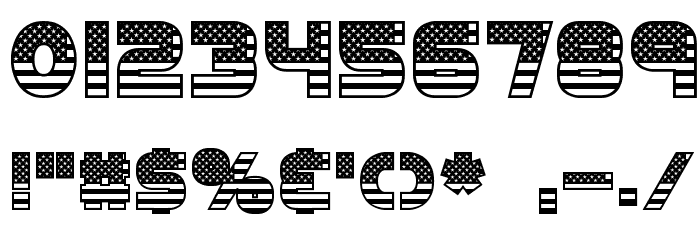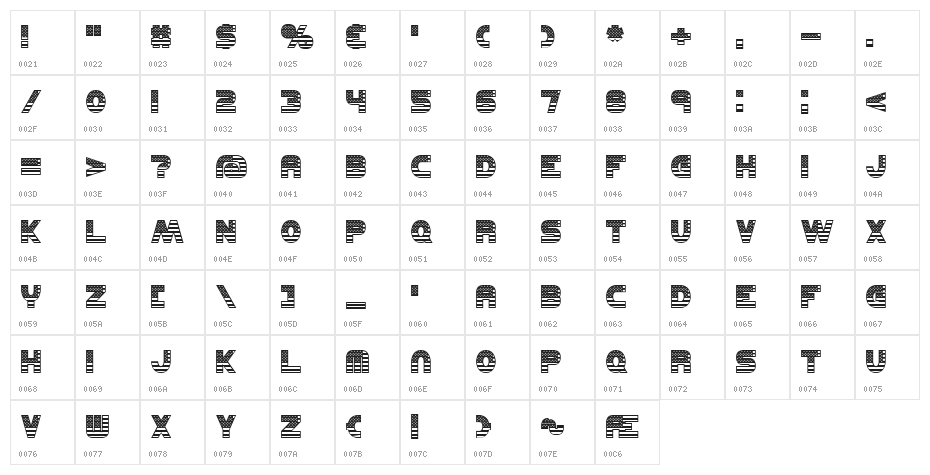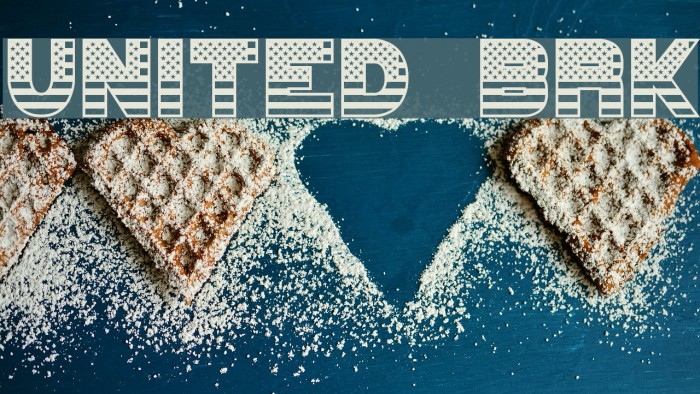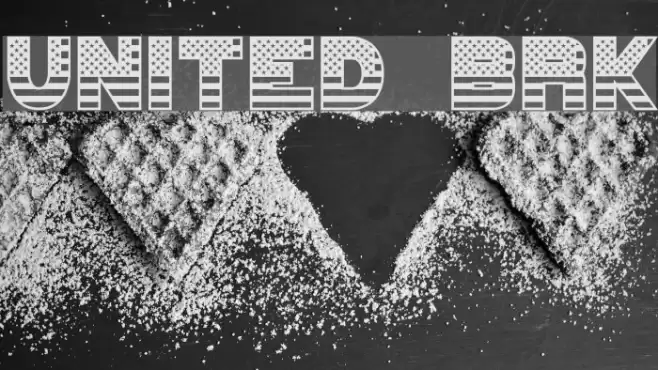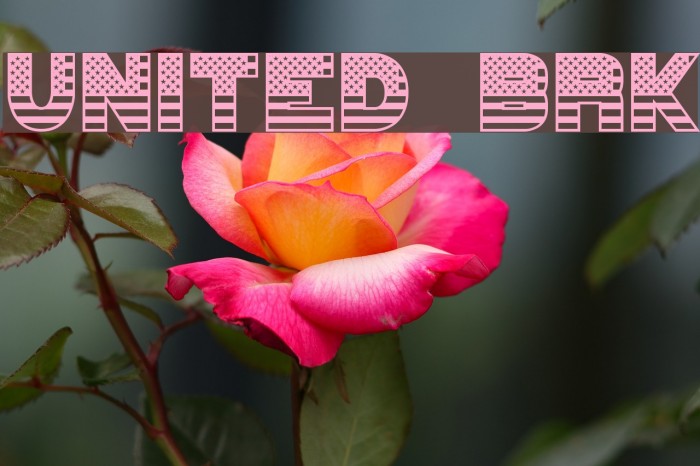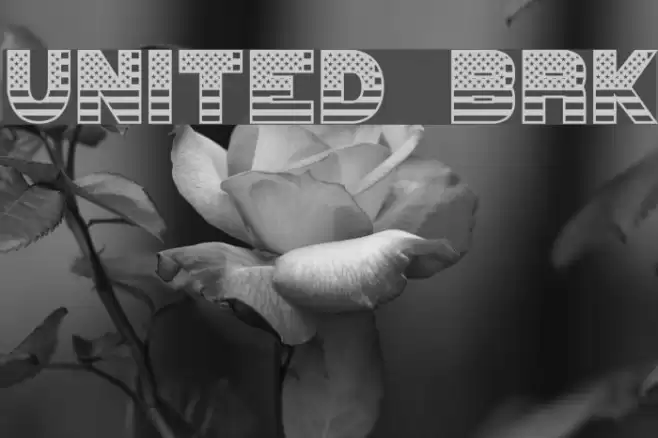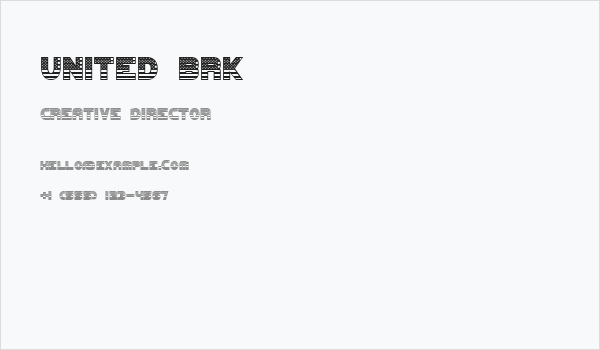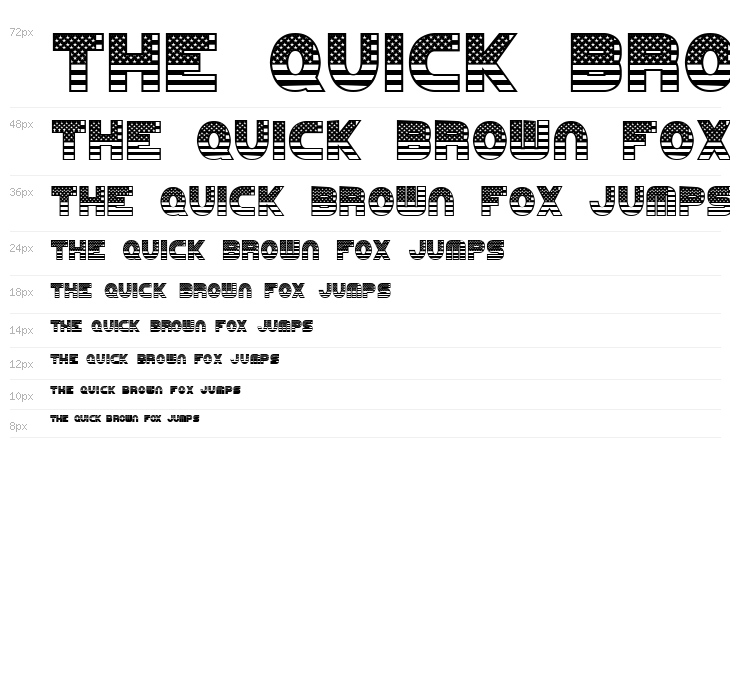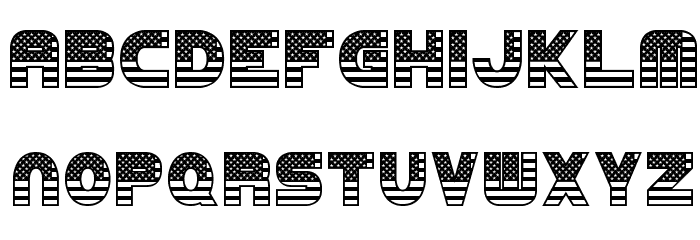
UNITED BRK Font
UNITED BRK Description
This font features a bold and decorative style, characterized by its unique pattern of stars and stripes within each character. The design is reminiscent of an American flag motif, with alternating sections of solid and patterned fills. The letters are uppercase and have a blocky, geometric form, giving them a strong and impactful appearance. The numbers and special characters follow the same stylistic theme, ensuring consistency across all glyphs. This font is ideal for projects that require a patriotic or Americana theme, offering a visually striking and thematic option for designers.
| Proposed Projects | Ideal for patriotic-themed designs, event posters, branding for American holidays, and merchandise. |